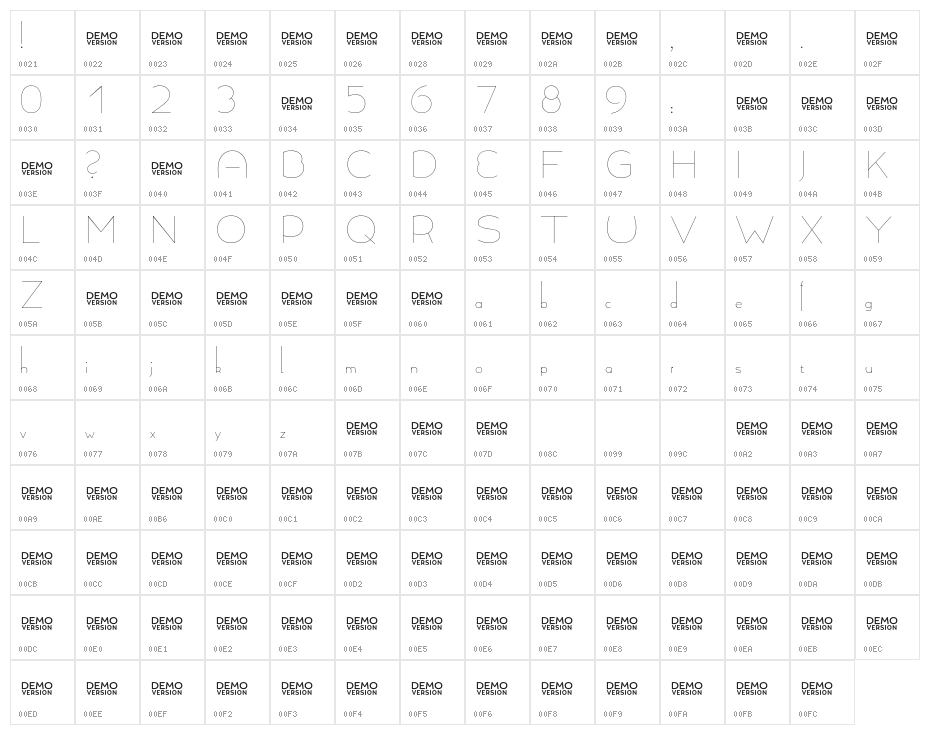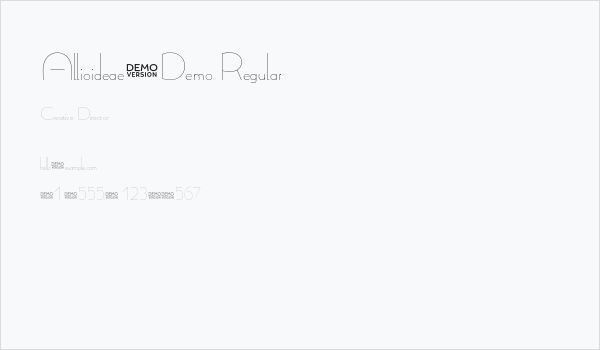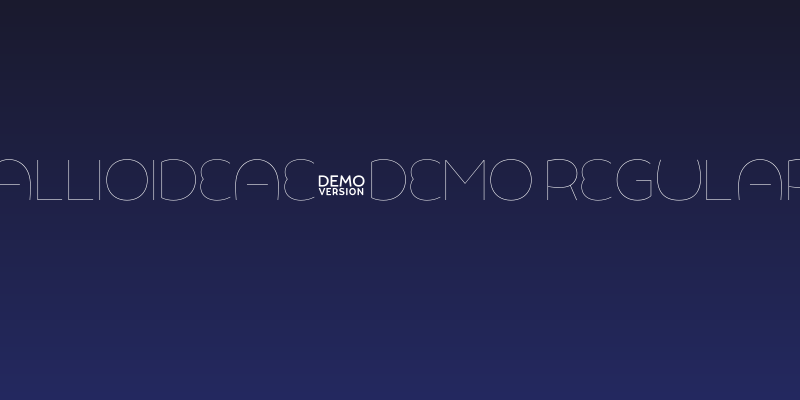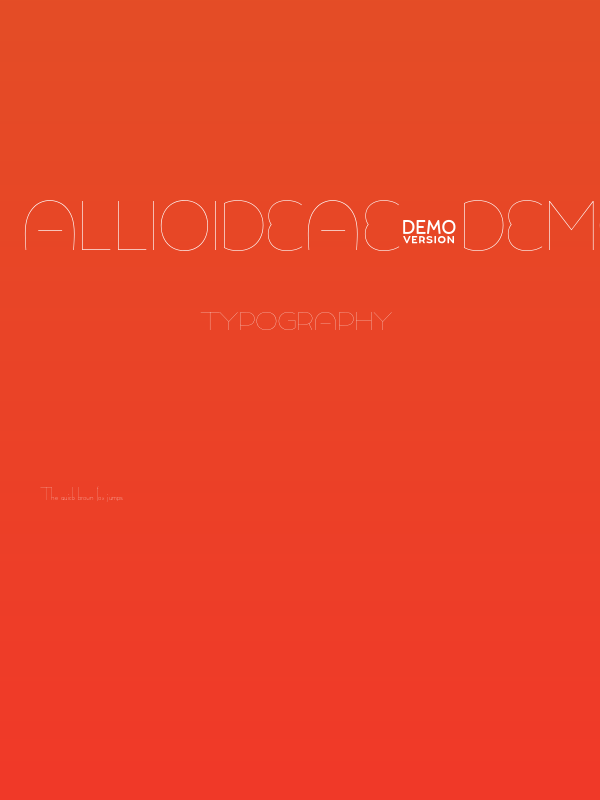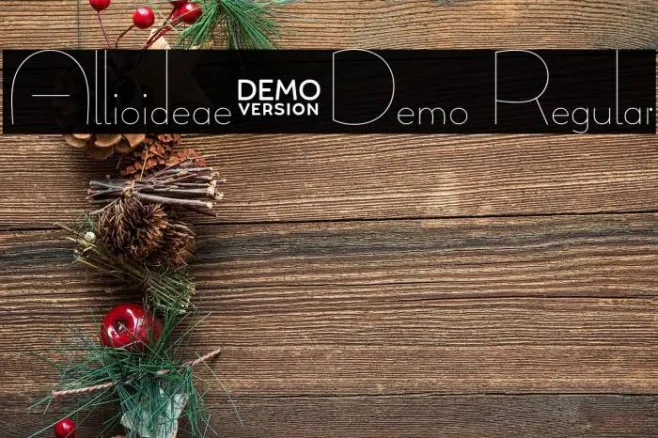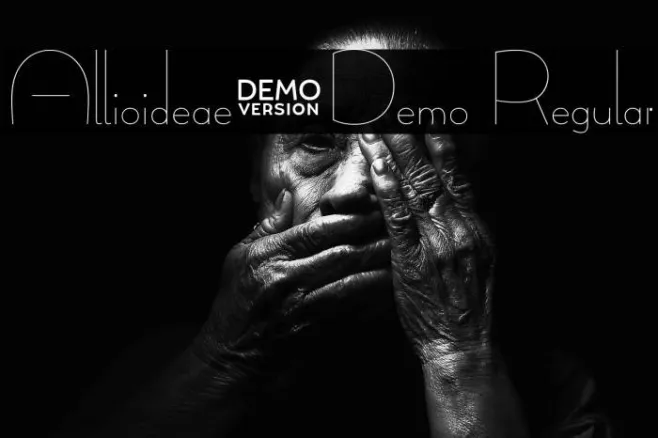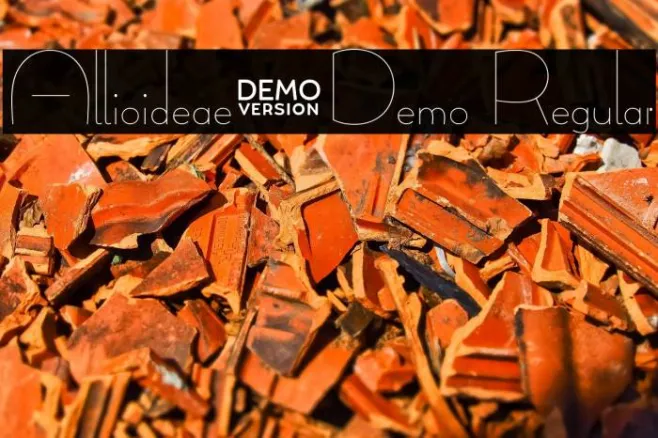
Allioideae-Demo Regular Font
Allioideae-Demo Regular Description
This font features a sleek and modern design with thin, elongated strokes that give it a minimalist and airy appearance. The uppercase letters are tall and narrow, while the lowercase letters maintain a consistent height, contributing to a clean and uniform look. The numerals are similarly styled, with a focus on simplicity and elegance. Special characters are integrated seamlessly, maintaining the overall aesthetic. The font's delicate lines and open spaces make it ideal for projects that require a contemporary and sophisticated touch.
| Proposed Projects | Ideal for branding, editorial design, fashion magazines, and minimalist posters. |